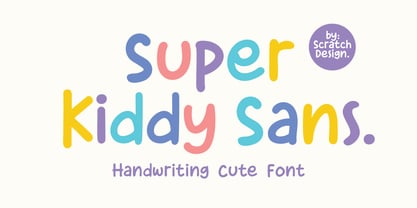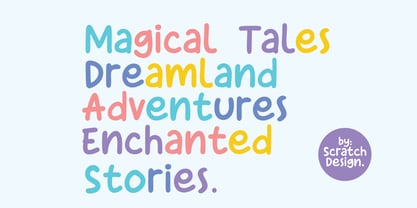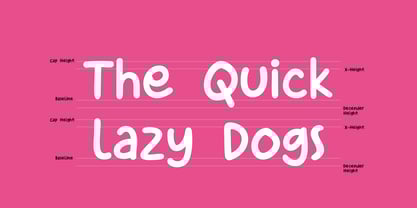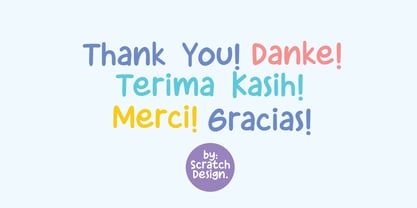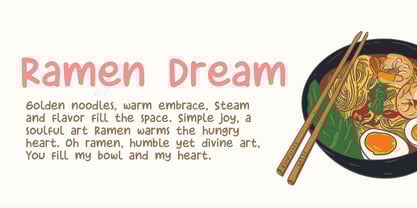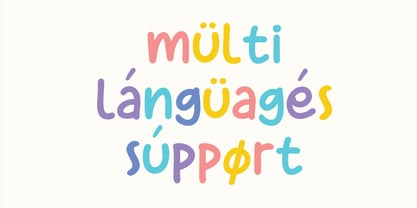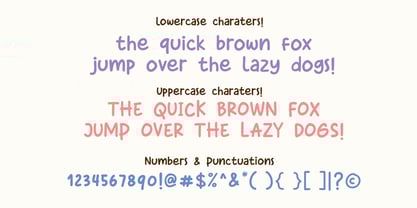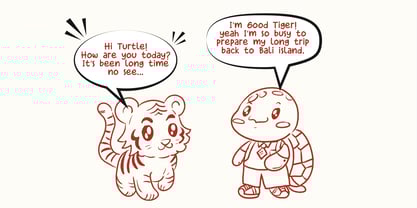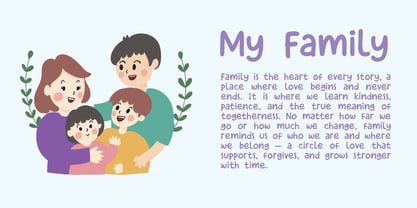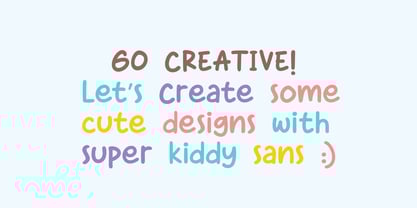
Super Kiddy Sans
by Scratch Design
The Super Kiddy Sans Font Family was designed by Gitayogi Irhandi and published by Scratch Design. Super Kiddy Sans contains 1 styles. More about this family
Bring your stories to life with this charming handwritten font from Scratch Design, crafted to capture the playful spirit of children’s handwriting while maintaining a clean, consistent, and professional finish. Perfectly cute, fun, and naturally expressive, this font adds warmth and personality to any creative project. It is ideal for comics, children’s books, novels, diaries, journals, planners, educational materials, classroom worksheets, note-taking apps, greeting cards, stickers, social media posts, and branding for kid-friendly products. Despite its cute and casual style, the letterforms remain neat and consistent, making it suitable for adult notes that require a friendly and approachable look. With complete glyph coverage and multi-language support, this font is perfect for writers, illustrators, educators, and designers seeking a handwriting style that is both playful and highly usable. If you're creating stories, books, comics, or cute visuals that need an authentic, lovable handwritten touch, this font is an essential addition to your collection. Make your designs feel alive, friendly, and full of character.
Designers: Gitayogi Irhandi
Foundry: Scratch Design